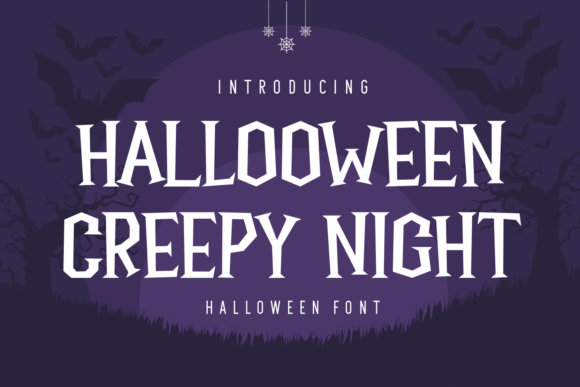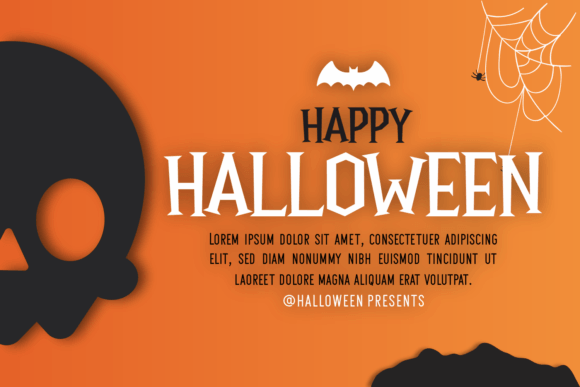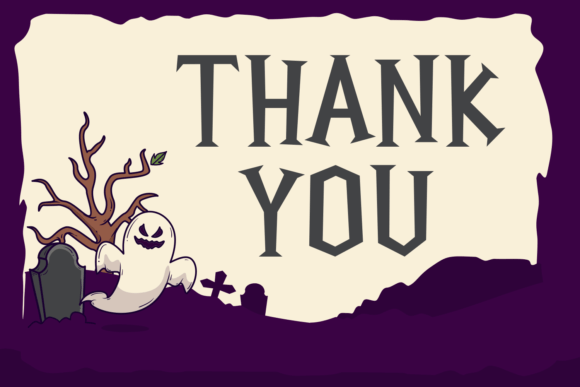
Halloween Creepy Night Font
Halloween Creepy Night is exactly what the name says – a creepy Halloween handwritten font. Add it to your Halloween party invitations, t-shirts, or cards, and watch it how it makes them stand out!